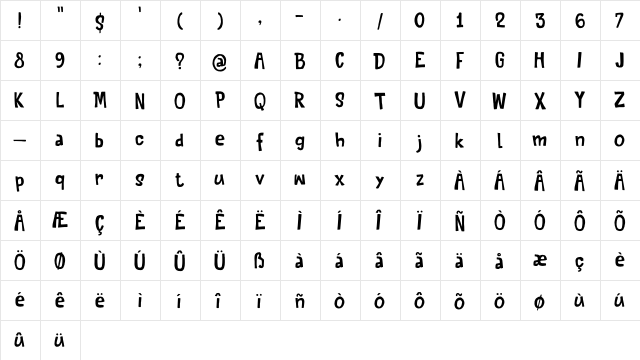
Quite Something DEMO Regular
| Foundry | David Kerkhoff |
| Designer | David Kerkhoff |
Design Context for Quite Something DEMO Typeface
Quite Something DEMO is a composed and adaptable typeface that performs quietly and consistently across a wide range of design contexts. Its slender proportions lend an understated elegance to any composition.